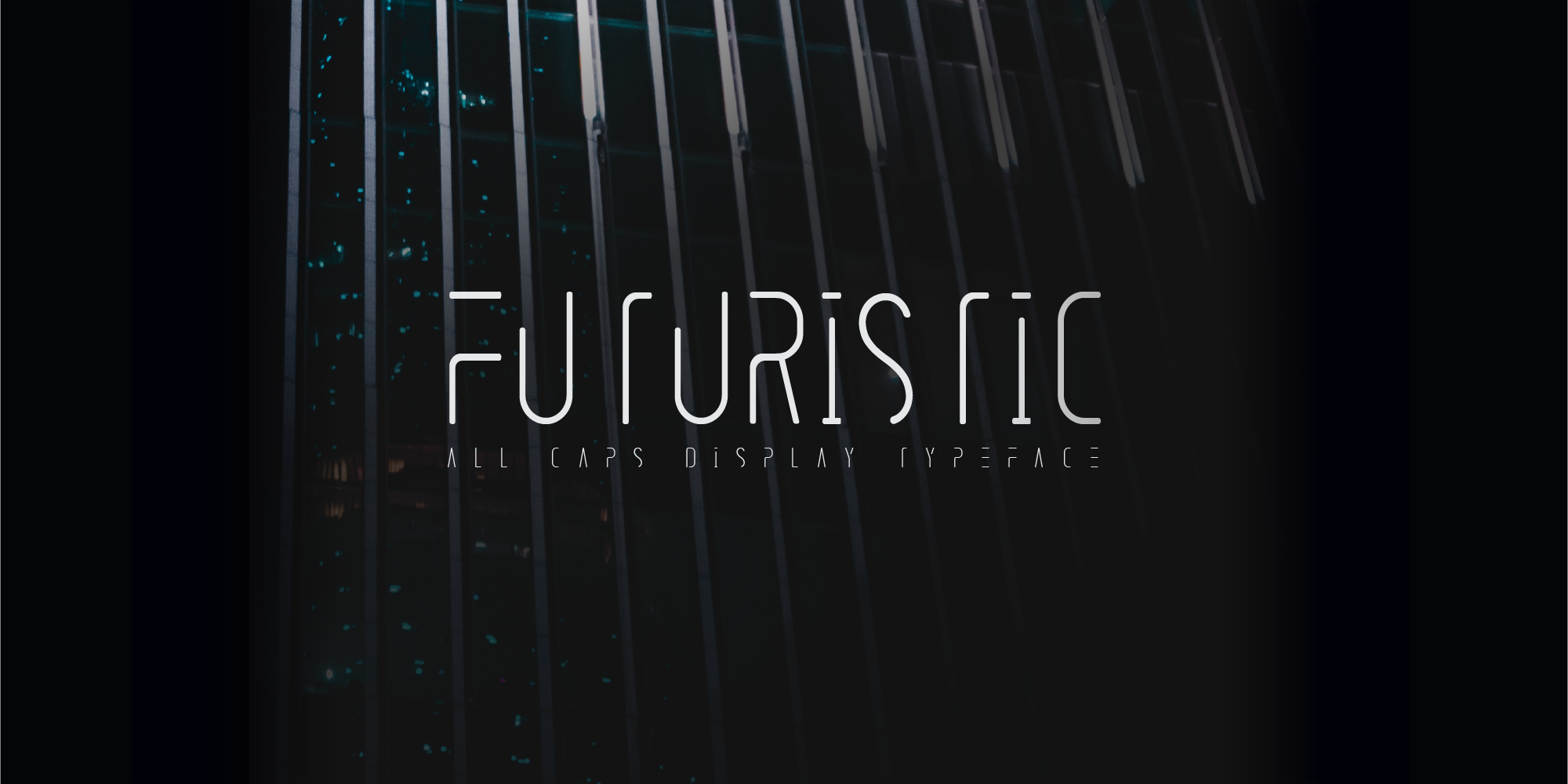
Usage Examples: Futuristic Font is ideal for sci-fi movie posters, tech startup branding, gaming interfaces, and digital product packaging.
Why It’s Exciting: Its sleek, geometric design with sharp angles and minimalistic lines evokes a cutting-edge, sci-fi aesthetic, perfect for innovative projects.
Font Families: Futuristic Font includes Regular, Bold, and Italic variants, offering versatility for bold, modern design applications.
Step into the future with Futuristic Font Free Download! This typeface, inspired by sci-fi and technological themes, features clean, geometric shapes that scream innovation, making it a top choice for logos, app interfaces, and promotional materials. Its bold, forward-thinking style aligns perfectly with tech-driven designs, ensuring your projects stand out. Download Futuristic Font Free Download now to test its modern appeal, but secure a commercial license for professional use. With Regular, Bold, and Italic styles, this font adapts seamlessly to various creative needs, balancing readability and futuristic flair. Elevate your brand’s vision with this dynamic typeface today